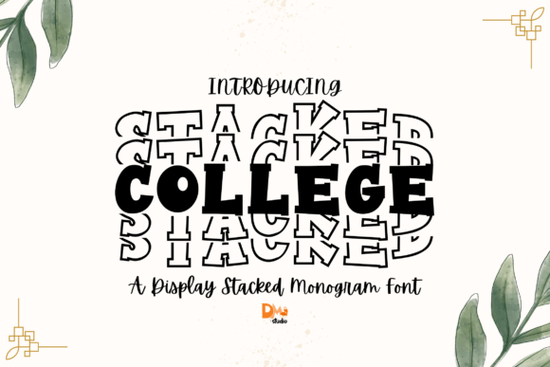
If you’ve ever designed a varsity jacket, school spirit gear, or personalized monogram gift, you know how much the right font can elevate your project. The Stacked College Monogram Font taps into that timeless collegiate aesthetic think bold letterforms, clean lines, and initials stacked vertically for instant visual impact. It’s especially useful if you're creating embroidery patterns, custom apparel, or digital artwork that needs to feel both personal and rooted in tradition.
Unlike standard monogram fonts that arrange letters side by side, this typeface uses a vertical layout: the first and last initials flank a larger center initial (usually the middle name or surname). This classic arrangement works beautifully for everything from sorority merch to vintage-style sports branding. And because it’s built with clear, well-defined strokes, it scales cleanly from small patches to large-format prints without losing detail.
What kinds of projects work best with this font?
The Stacked College Monogram Font shines in contexts where heritage, identity, or team pride matter. Here are a few real-world uses:
- School spirit items: T-shirts, hoodies, pennants, and locker decals for high schools or universities.
- Personalized gifts: Towels, mugs, or tote bags featuring someone’s initials in a classic layout.
- Sports branding: Team logos, player jerseys, or fan gear that leans into old-school athletic style.
- Embroidery and vinyl cutting: Its solid shapes and minimal thin lines make it ideal for machine stitching or heat-transfer applications.
If you’re running a print-on-demand shop or selling handmade goods on Etsy, this font gives your products a cohesive, professional look without requiring complex design skills. Just type three letters, adjust spacing if needed, and you’ve got a ready-to-use emblem.
How does it compare to other decorative monogram fonts?
Not all monogram fonts are created equal. Some lean romantic (like this wedding-themed option), while others embrace whimsy (such as the Coquette Bow Font). The Stacked College Monogram Font stands apart by focusing on structure and tradition it’s less about flourishes and more about bold, readable geometry.
For example, if you’re designing for a college reunion or alumni event, this font conveys authenticity better than something overly ornate. On the other hand, if you’re making baby onesies or bridal party robes, you might prefer the softer curves of the Lovely Butterfly Font. Each serves a different mood, and knowing when to use which saves time and improves customer appeal.
Tips for using it effectively
To get the most out of this font, keep a few practical considerations in mind:
- Stick to uppercase: The stacked layout is designed for capital letters. Lowercase characters may not align properly or could break the intended symmetry.
- Watch your spacing: Some design software auto-kerns letters, which can disrupt the centered balance. Manually adjust tracking if the initials feel too tight or too loose.
- Pair it wisely: Use a simple sans-serif (like Helvetica or Arial) for supporting text so the monogram remains the focal point.
- Test at size: Always preview your design at actual print or embroidery scale. What looks crisp on screen might blur or fill in when stitched or printed small.
Also, remember that monograms follow naming conventions. In traditional U.S. style, the center initial is the surname, with first and middle names on either side. But customs vary some brides place their maiden initial in the center, for instance. Clarify your client’s preference before finalizing.
Ready to try it?
If you’re crafting school merchandise, team apparel, or heritage-inspired gifts, the Stacked College Monogram Font offers a reliable, visually strong foundation. It’s straightforward to use, widely compatible, and carries just enough nostalgic charm to feel special without looking dated.
Before you start your next project, check this quick list:
- ✅ Confirm the correct initial order (first-middle-last or another convention)
- ✅ Test print or stitch a sample at final size
- ✅ Pair with neutral or school-color palettes for maximum impact